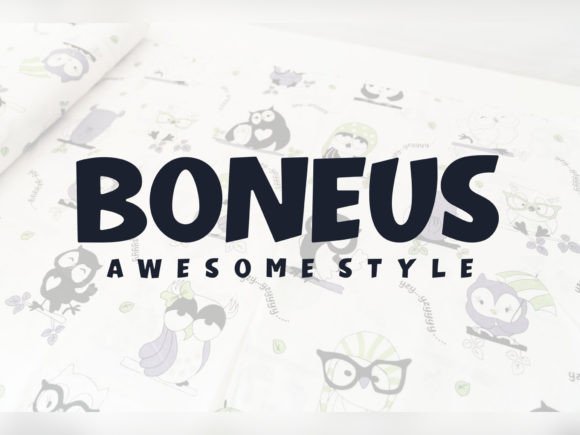
Get ready to unleash your creativity with the captivating Boneus display font, a masterpiece designed by the artistic minds of Artnivora Std. Experience a world of endless possibilities where imagination knows no bounds.
Indulge in the playful charm of Boneus, a font that dances on the page with its captivating curves and whimsical spirit. Its playful nature is perfect for adding a touch of whimsy to your logo designs, making your brand stand out from the crowd.
Embark on a visual journey with Boneus, a font that seamlessly complements the pages of your magazine. Its delightful curves and cheerful demeanor will captivate your readers, immersing them in your stories and captivating their imaginations.
Unleash the power of Boneus on social media, where it shines as a beacon of creativity. Engage your audience with eye-catching posts and stories, leaving a lasting impression that will have them coming back for more.
Let Boneus elevate your brochures, transforming them into works of art. Its versatility knows no bounds, adapting effortlessly to any design style. From corporate presentations to personal projects, Boneus adds a touch of sophistication that will leave a lasting impact.
Boneus is more than just a font; it's a gateway to a world of endless creative possibilities. Its simple yet captivating nature empowers you to express yourself fully, whether you're a seasoned designer or just starting your artistic journey.
With Boneus, you'll never run out of inspiration. Its charming personality and playful spirit will ignite your imagination, inspiring you to create designs that captivate and enchant.